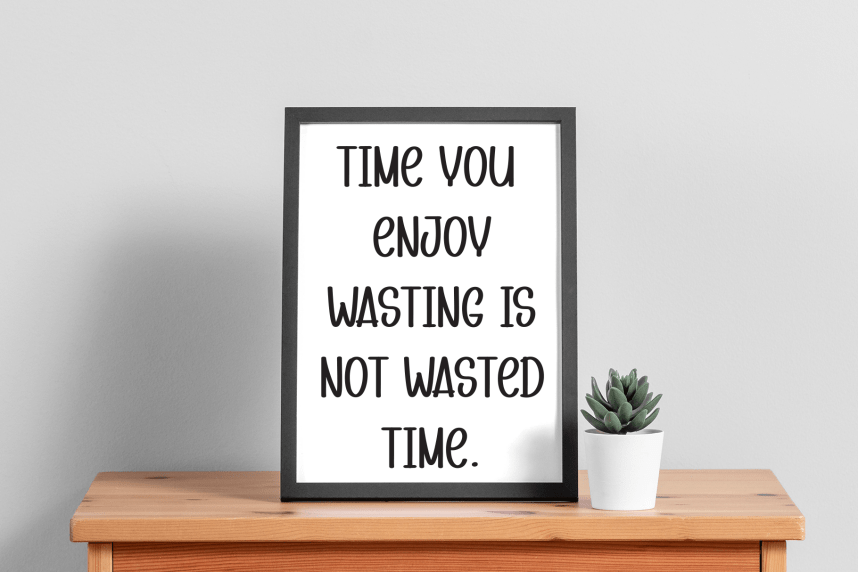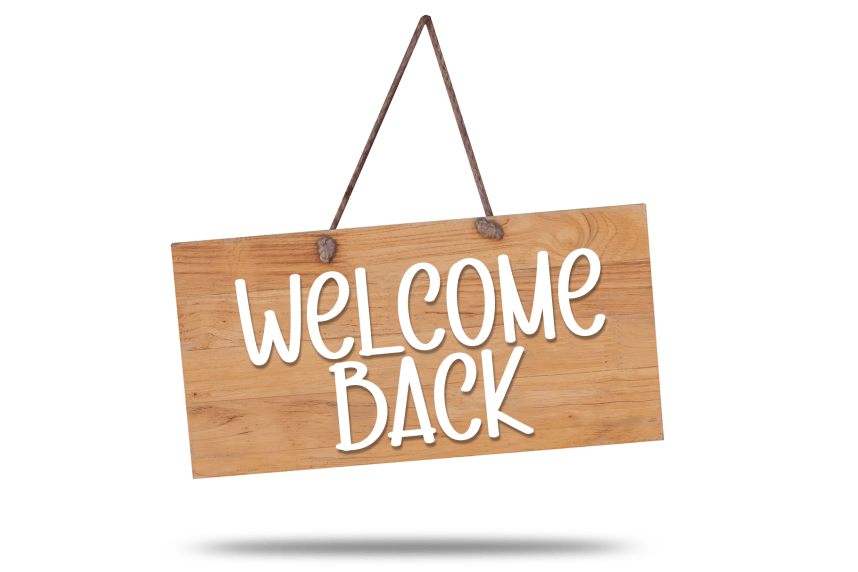
Modern Cupcake – Playful Style Font
Modern Cupcake – Playful Style Font is a sweet and friendly handwritten display font. Cute and fun, this font is ideal for writing wedding invitations, cards, or any other design that might need a playful touch!